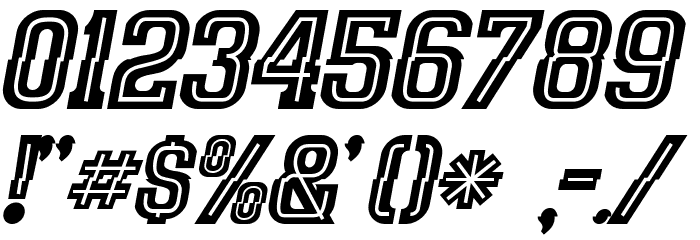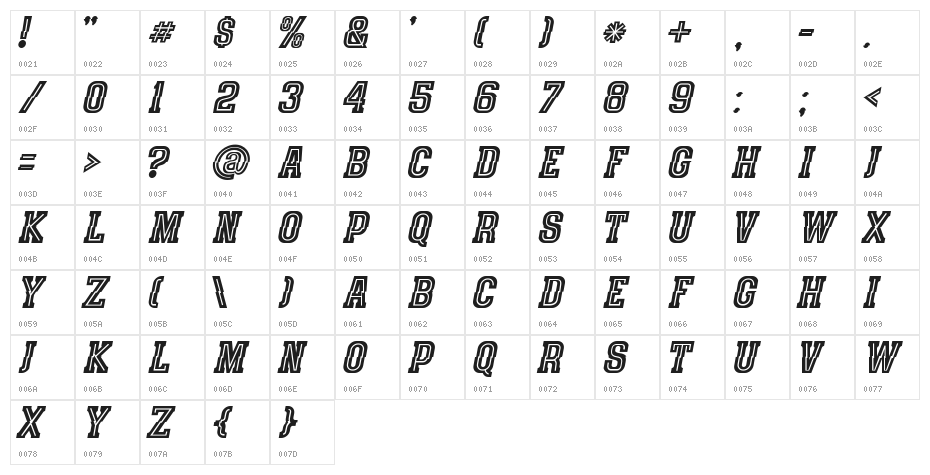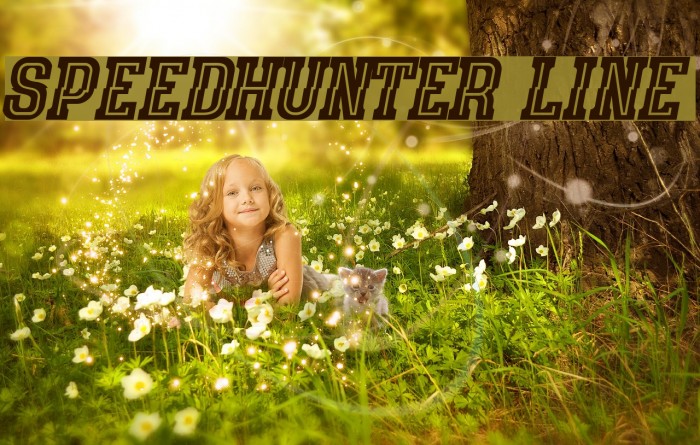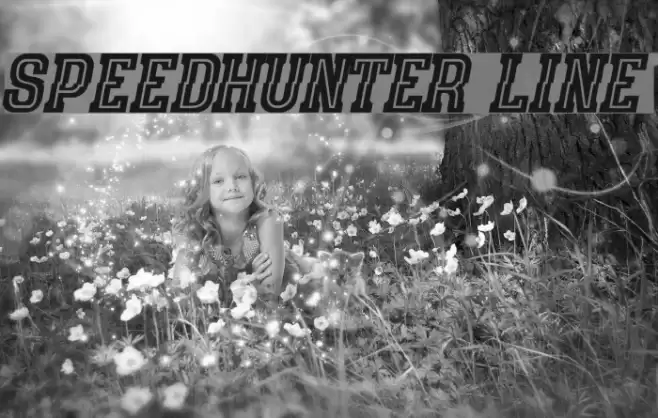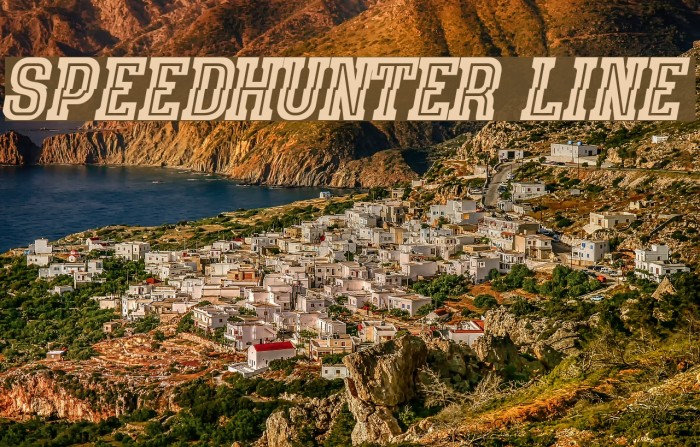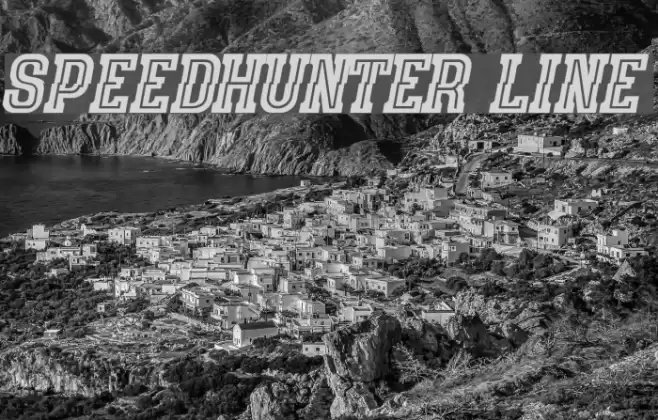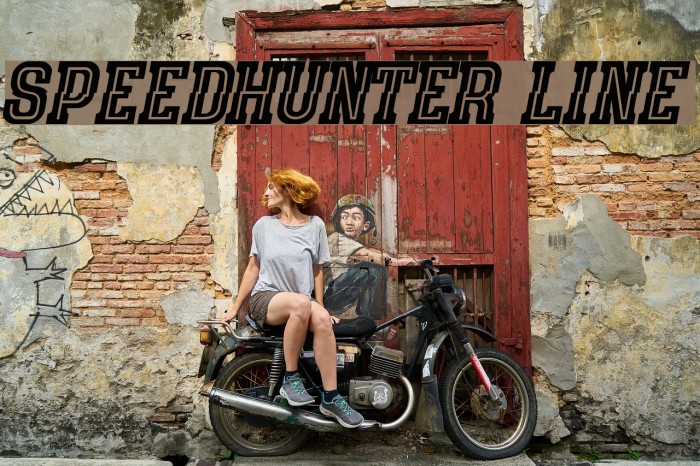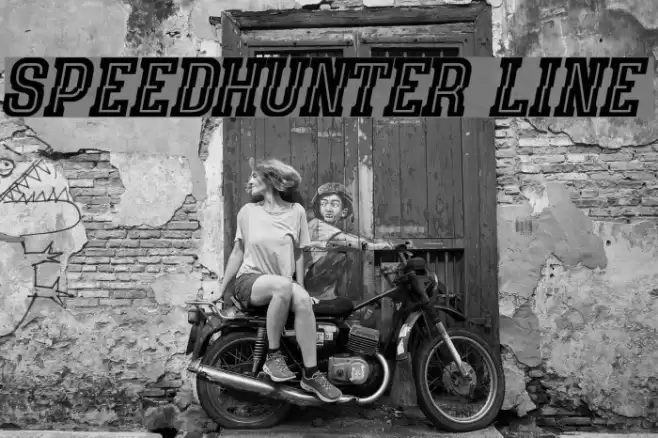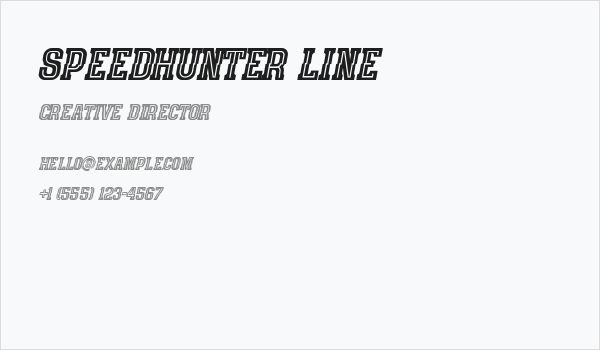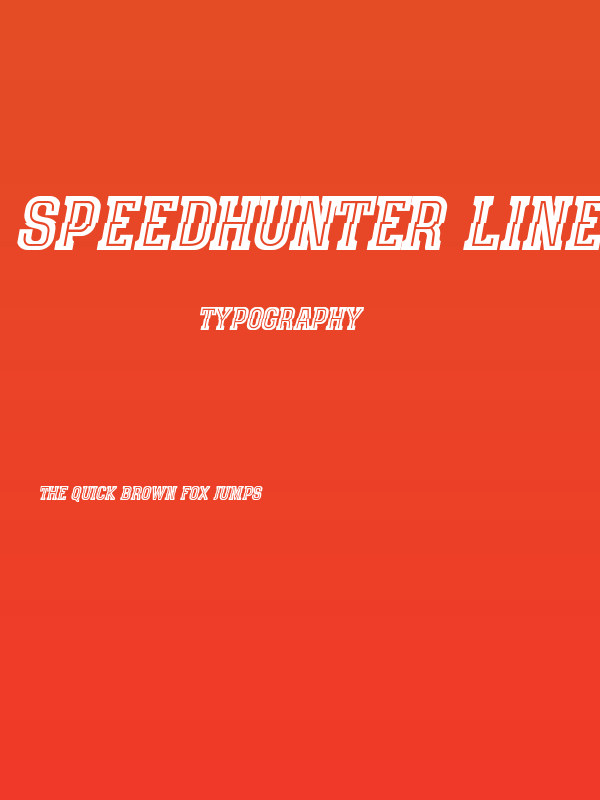
speedhunter line Font
speedhunter line Description
This font features a bold, dynamic style with a strong emphasis on movement and energy. The letters are outlined with a thick black stroke, creating a striking contrast against the white interior. The design incorporates a slight slant, enhancing its sense of speed and forward motion. Each character is meticulously crafted with sharp angles and clean lines, giving it a modern and edgy appearance. The numbers and special characters maintain the same bold and energetic style, ensuring consistency across all elements. This font is ideal for projects that require a sense of urgency or excitement.
| Proposed Projects | Ideal for sports branding, automotive advertising, dynamic posters, and energetic event promotions. |